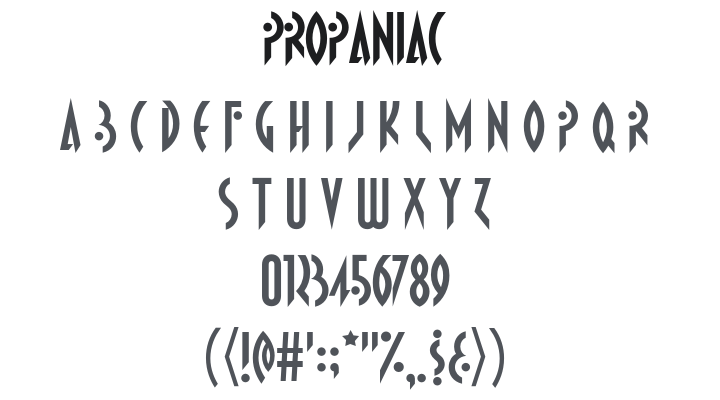
Propaniac Font
About Propaniac
Propaniac is a bold, postmodern all-caps display typeface inspired by a 1980s Pointer Sisters record sleeve — its sharp, geometric letterforms carry a distinct contemporary energy that balances 80s pop boldness with angular, almost industrial precision. Clean yet quirky, it has an unmistakable retro-modern attitude. Perfect for music branding, fashion editorial, product packaging, logos, and any design needing a confident, stylish 1980s-inflected personality.